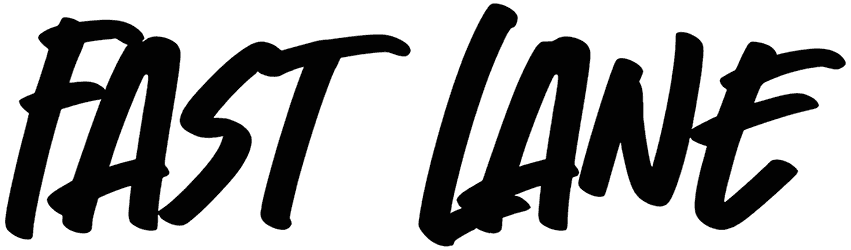
Fast Lane Font
Fast Lane’s irregular base gives it a handmade feel that’s great for producing creative writing. This handwritten font refers to the effect that can quickly gain the audience’s trust and significantly impact their emotions.
So, it’s used in projects that need to create a direct connection and must leave an impact on the audience’s mind. With this script font, you can complete branding, logo design, t-shirt, and packaging projects in the best possible way without needing lowercase letters and some numbers.